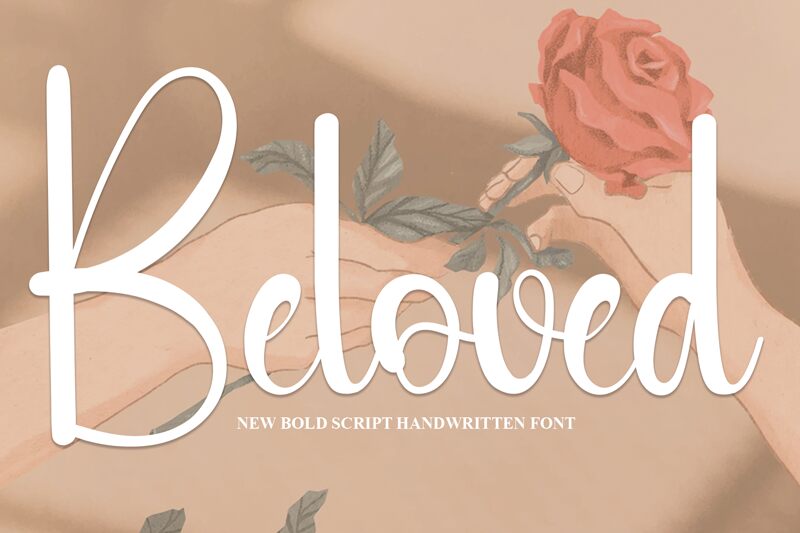
Beloved
Beloved, crafted by Scratchones, embodies the charm of handwritten artistry with its semi-light weight and semi-condensed width. This font's flowing, organic curves and slight slant evoke a sense of personal touch and intimacy, making it an exquisite choice for invitations, branding, and editorial design. The effortless elegance of Beloved ensures that it stands out in creative projects that require a bespoke feel.
Its legible yet distinctive appearance lends itself beautifully to both print and digital mediums, offering versatility to designers looking for a font with a human touch. Whether you're crafting heartfelt greetings or curating stylish logotypes, Beloved promises to add a whisper of warmth and sophistication to your work.